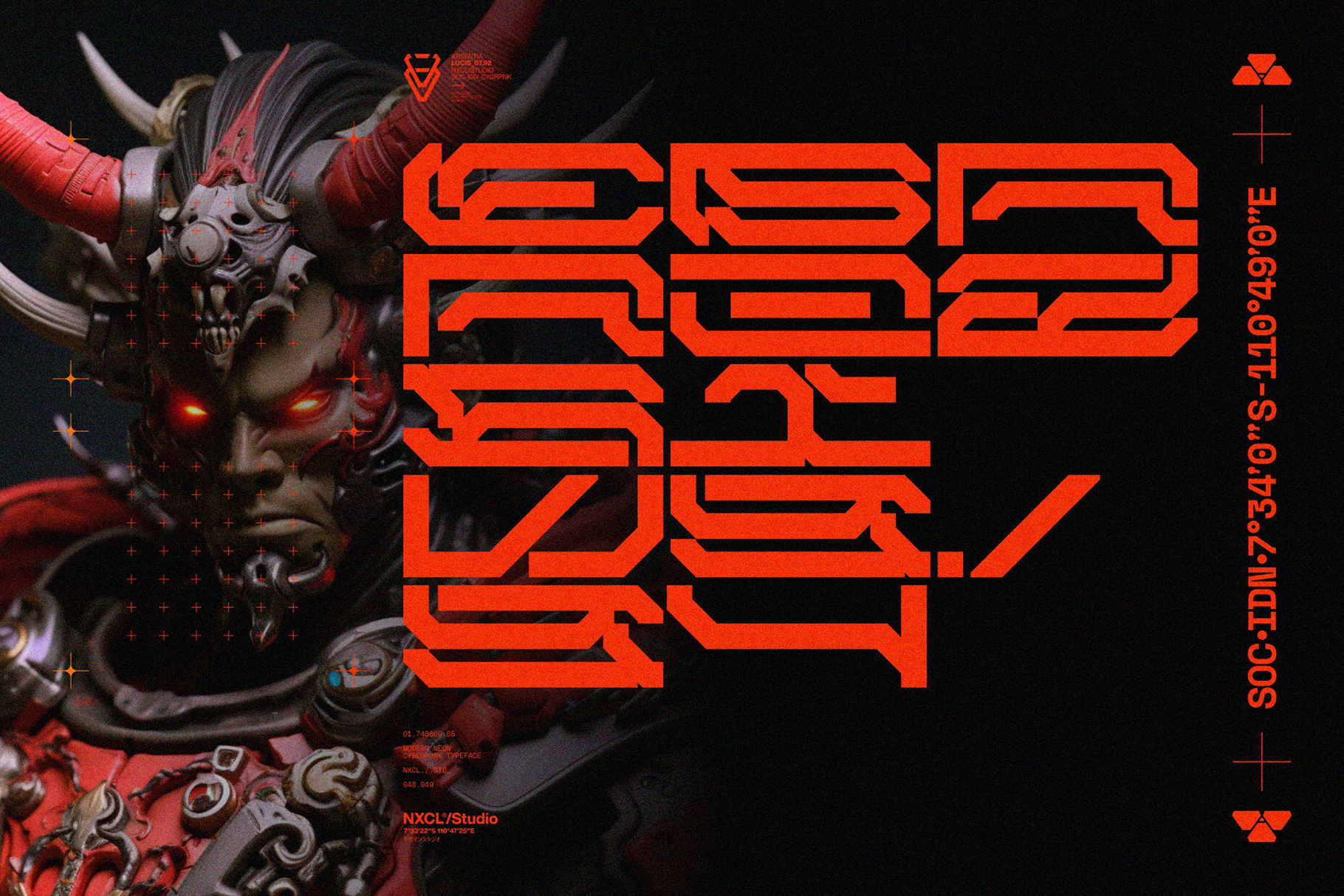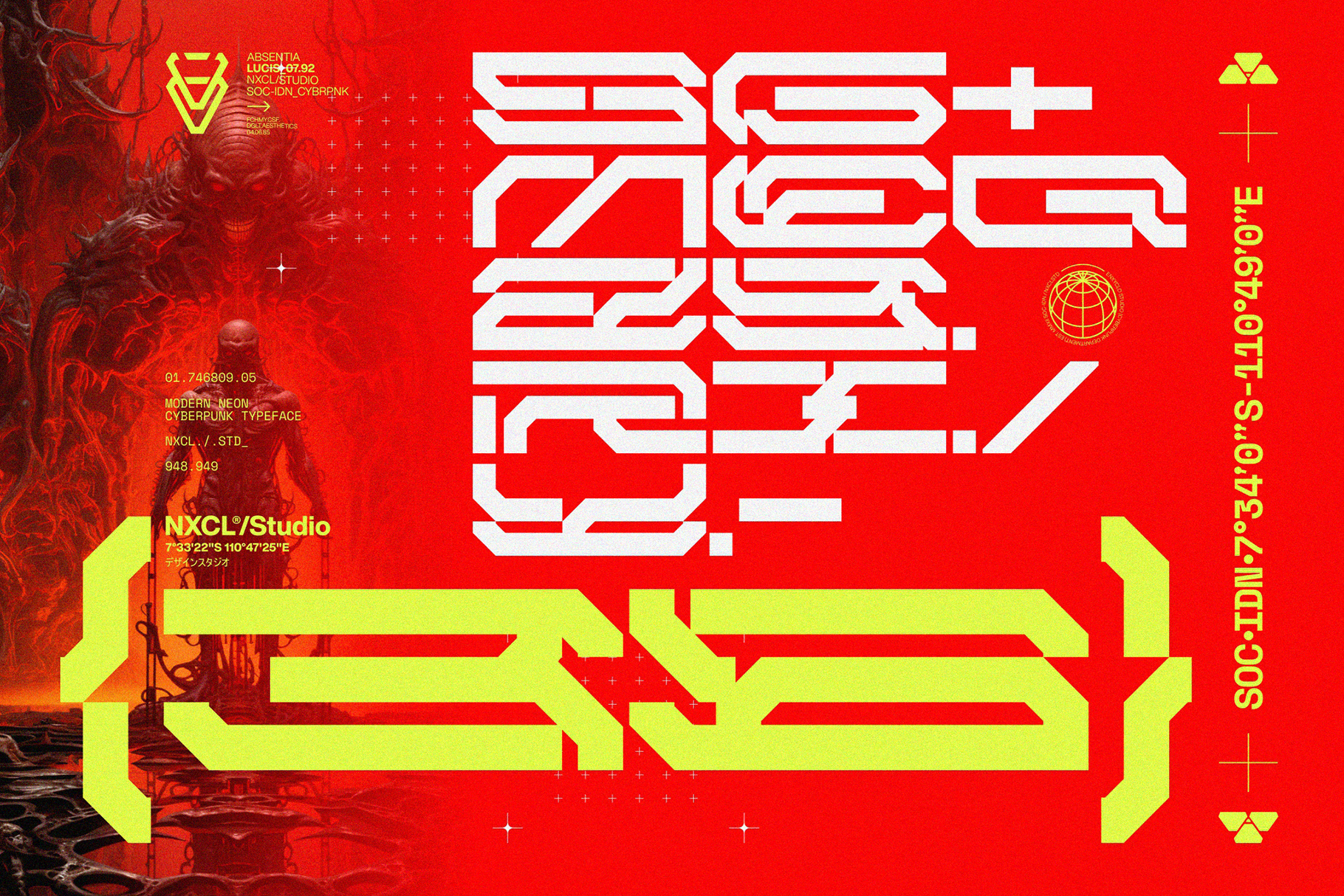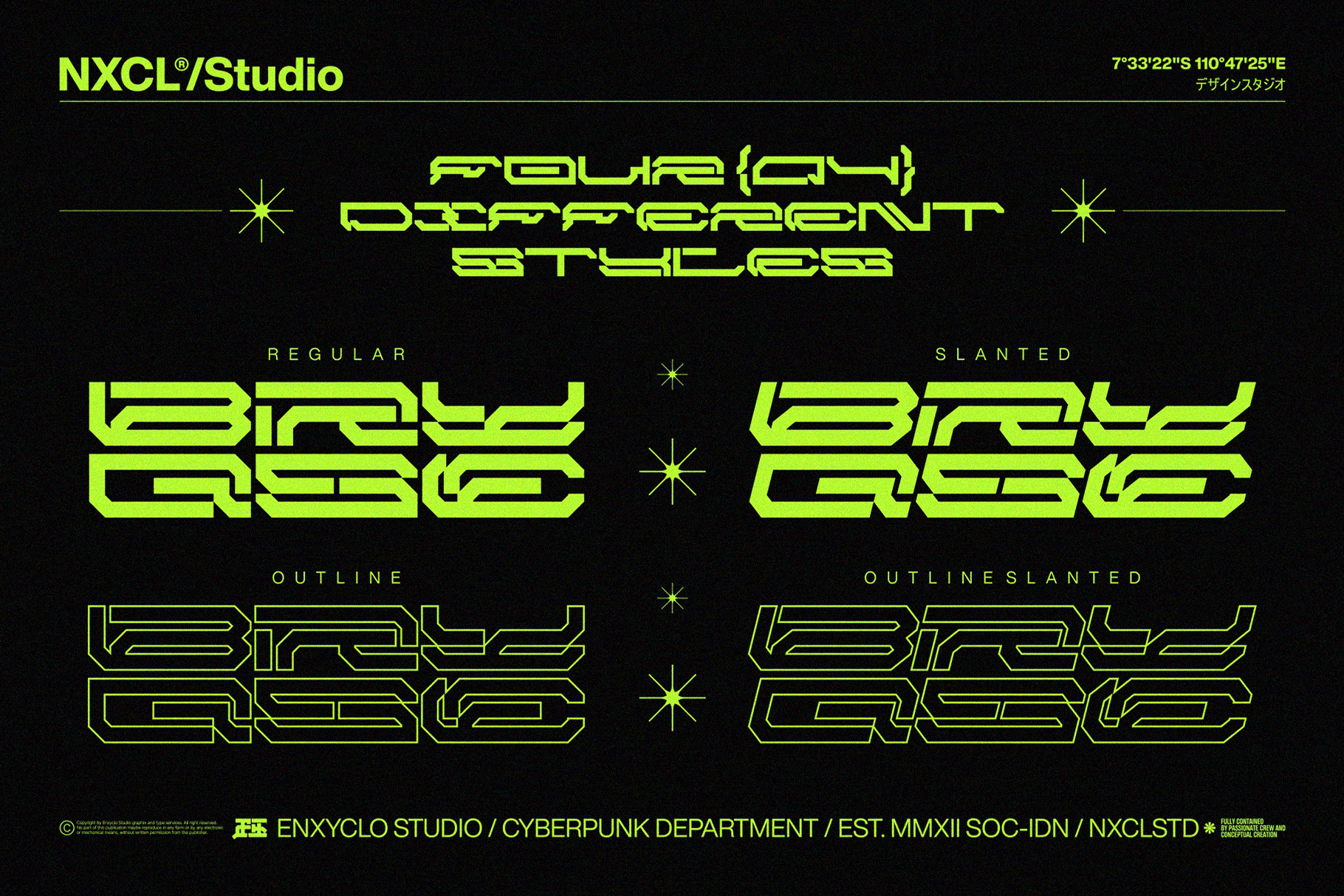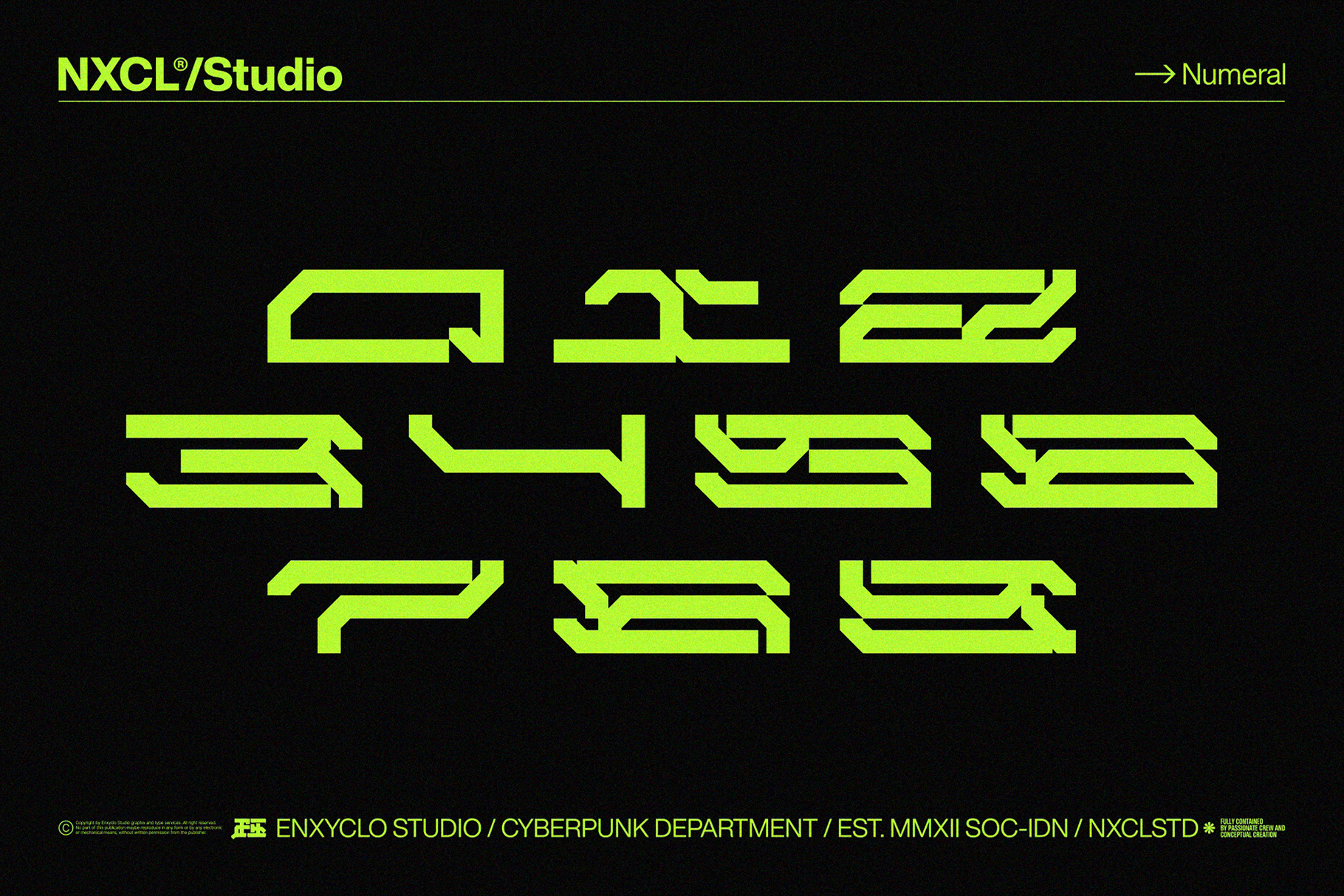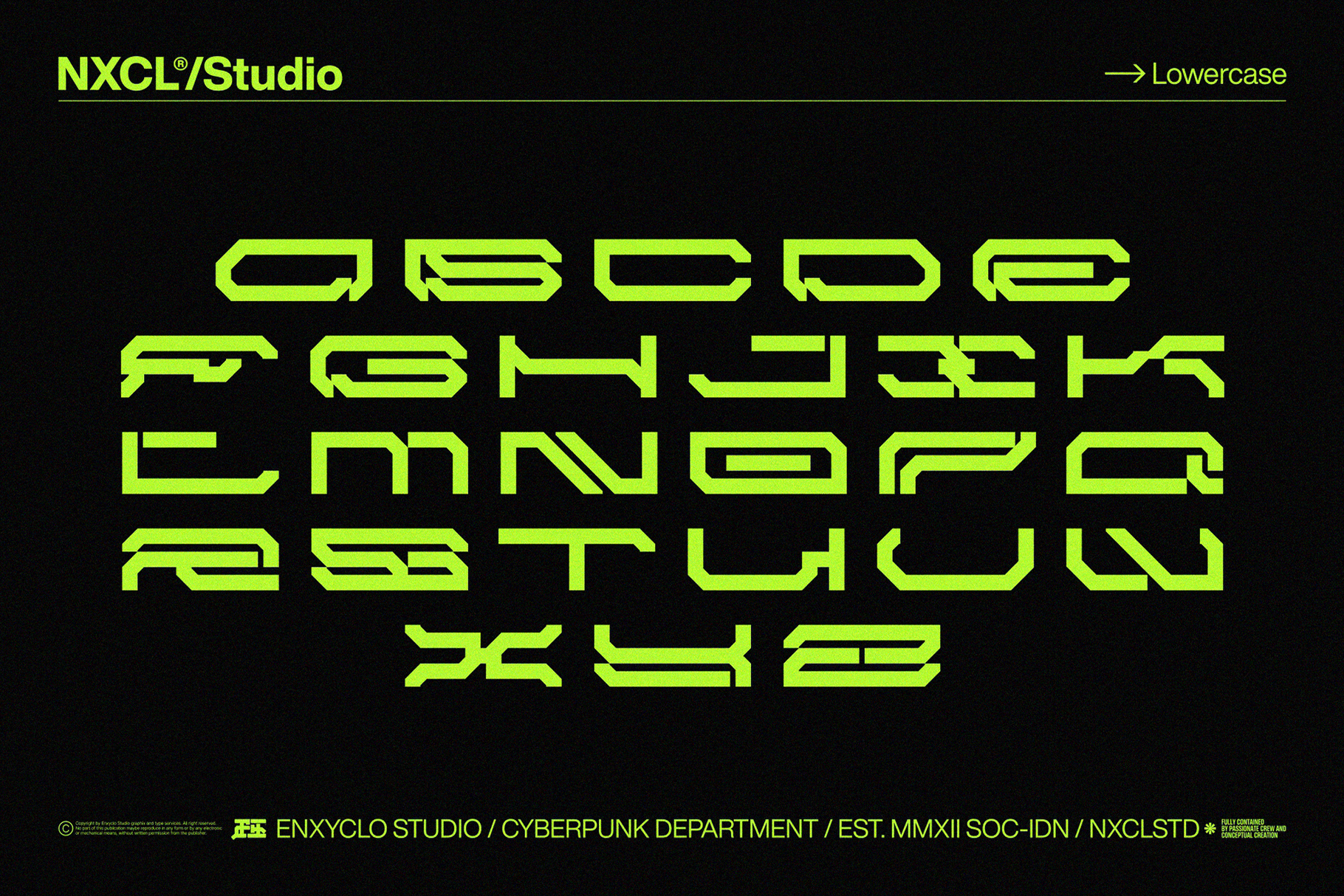
NCL Brayqose Expanded – Cyberpunk Futuristic Mecha Font
NCL BRAYQOSE EXPANDED is not your ordinary font. It’s a modern cyberpunk futuristic techno mecha expanded font that takes your creativity to the next level. Its futuristic aesthetics bring a whole new dimension to your designs, making them stand out. Whether you’re working on a website, poster, logo, or any other project, this font adds that extra touch of innovation and sophistication.
- 4 Style: Regular, Slanted, Outline, Outline Slanted
- Contains 437 Glyphs for Each Style and 1748 Glyphs for Total
- Uppercase & Lowercase
- Numeral, Punctuation & Symbols
- Stylistic Set 1-2
- Multilingual Support